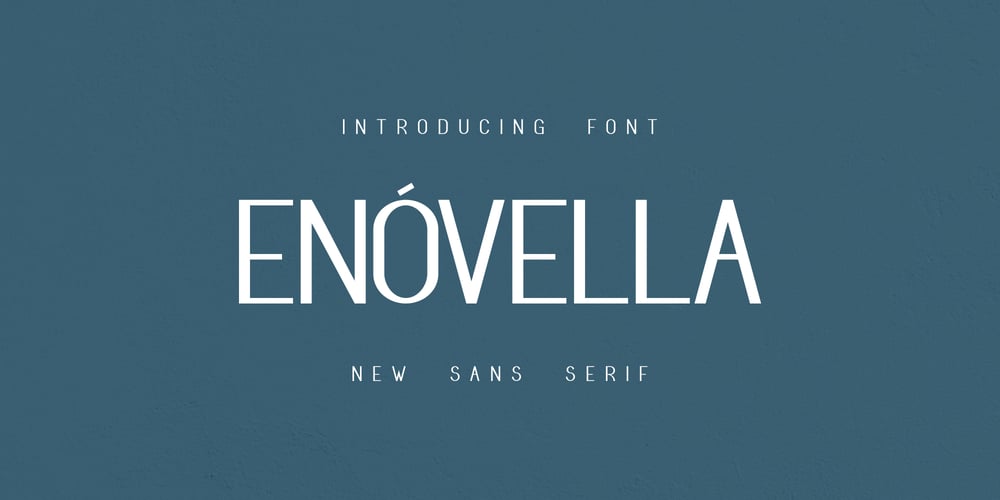
Enovella Font Family was designed by Iskandar Zulkarnain and published by Wontenart. Enovella contains 1 styles and family package options. Enovella is a cool and modern Sans Serif font. writing for a magazine that requires a lot of text is the strength of this font.easy to read, and not tired on the eyes.No matter the topic, this font will be an incredible asset to your fonts’ library, as it has the potential to elevate any creation.Thank You